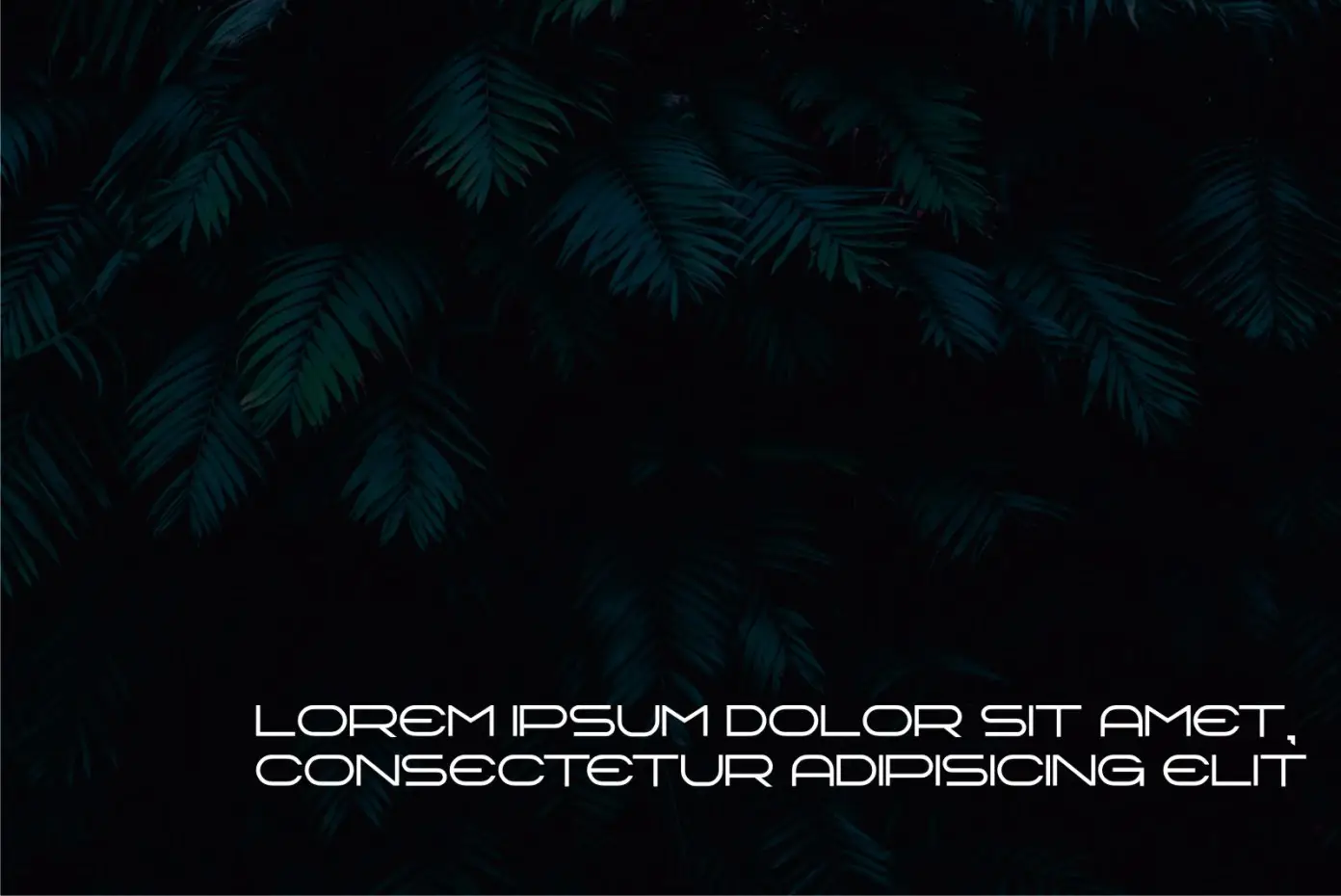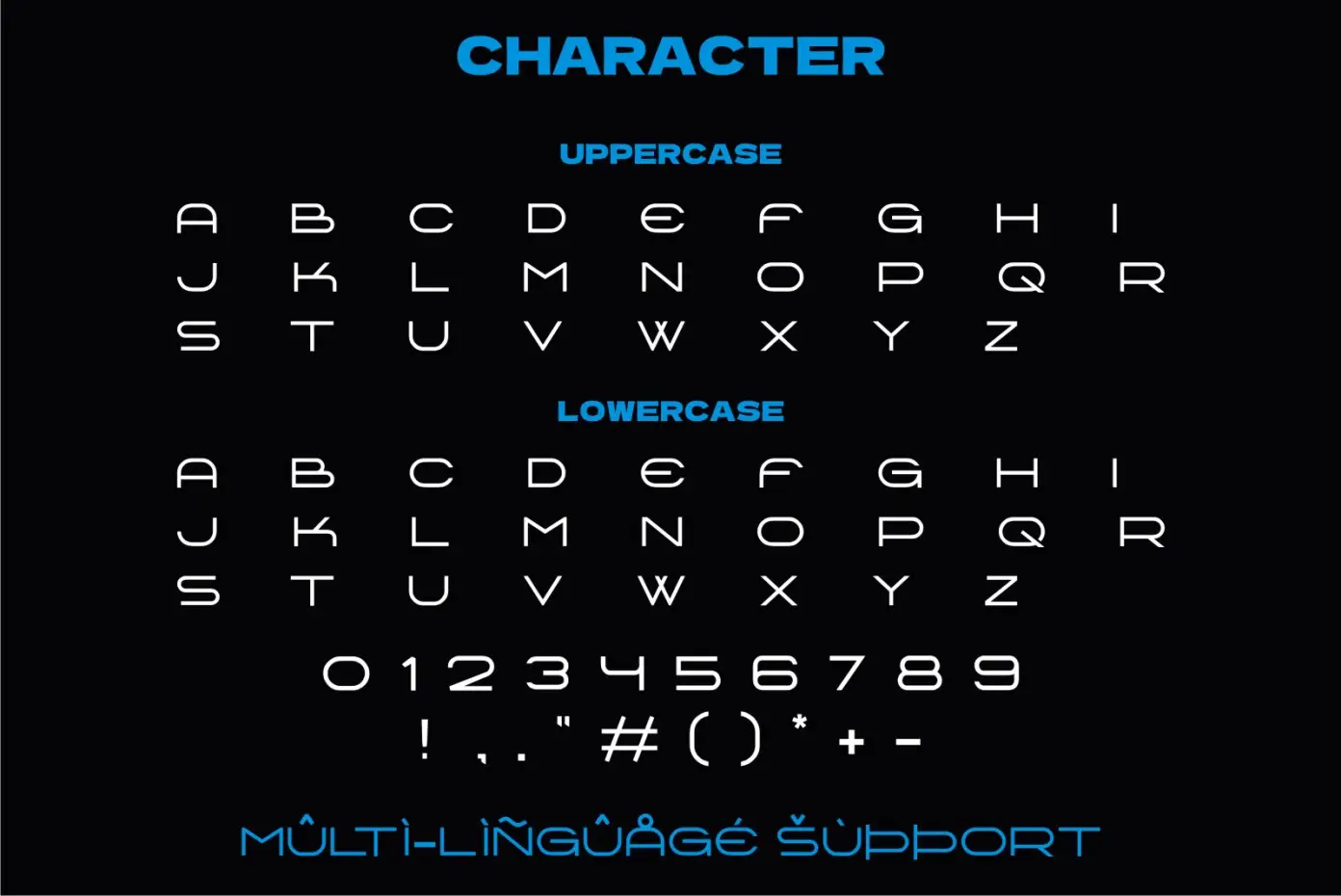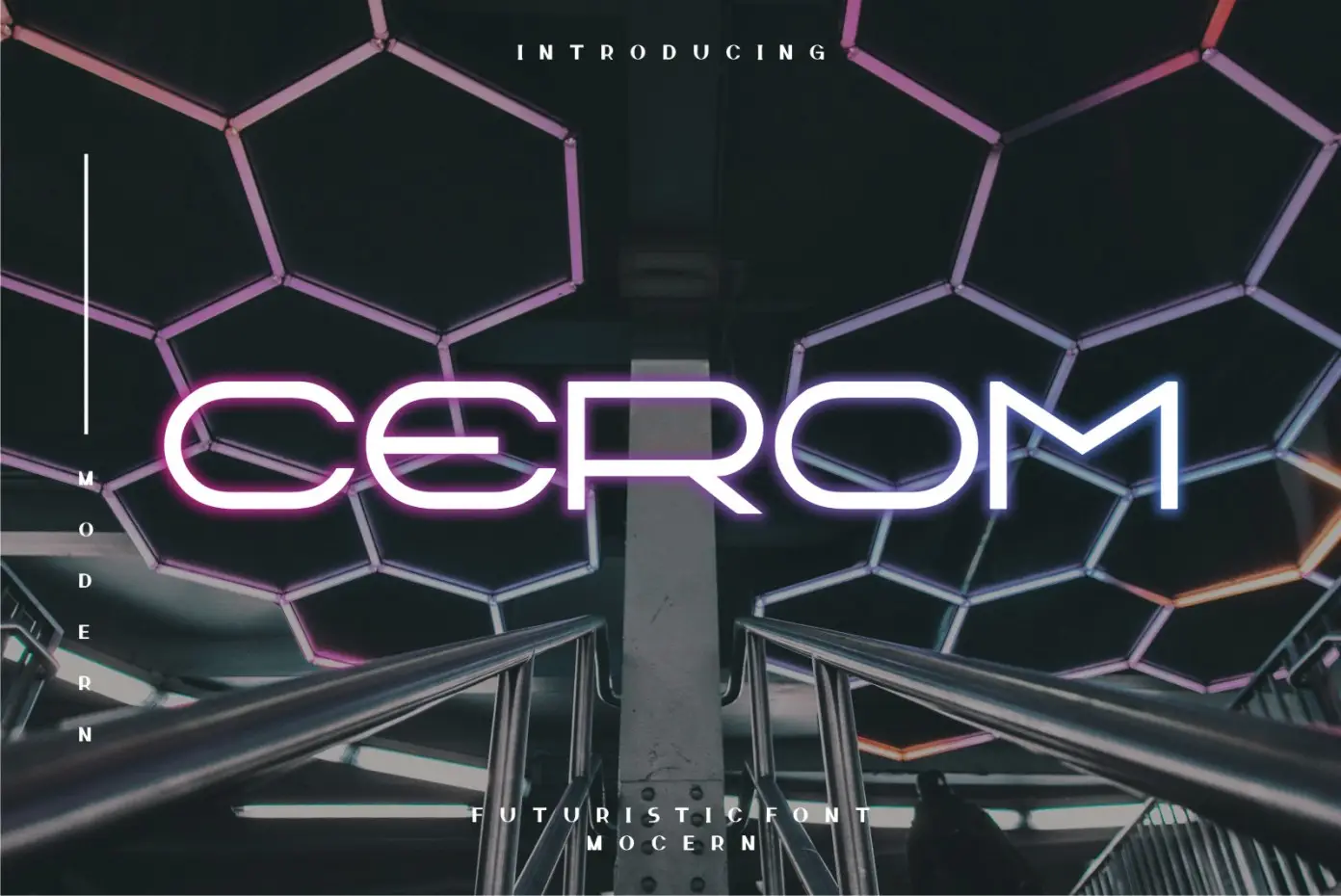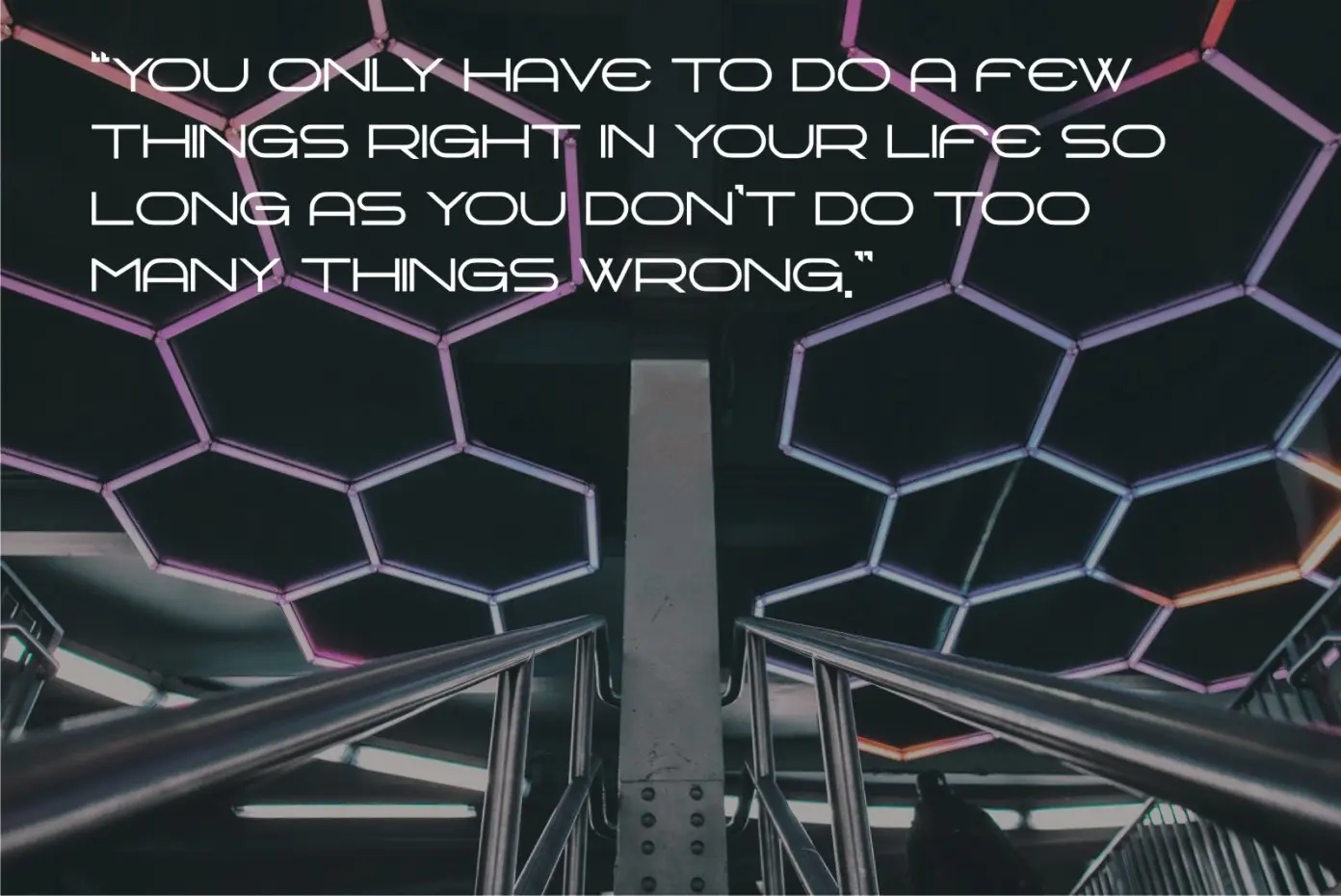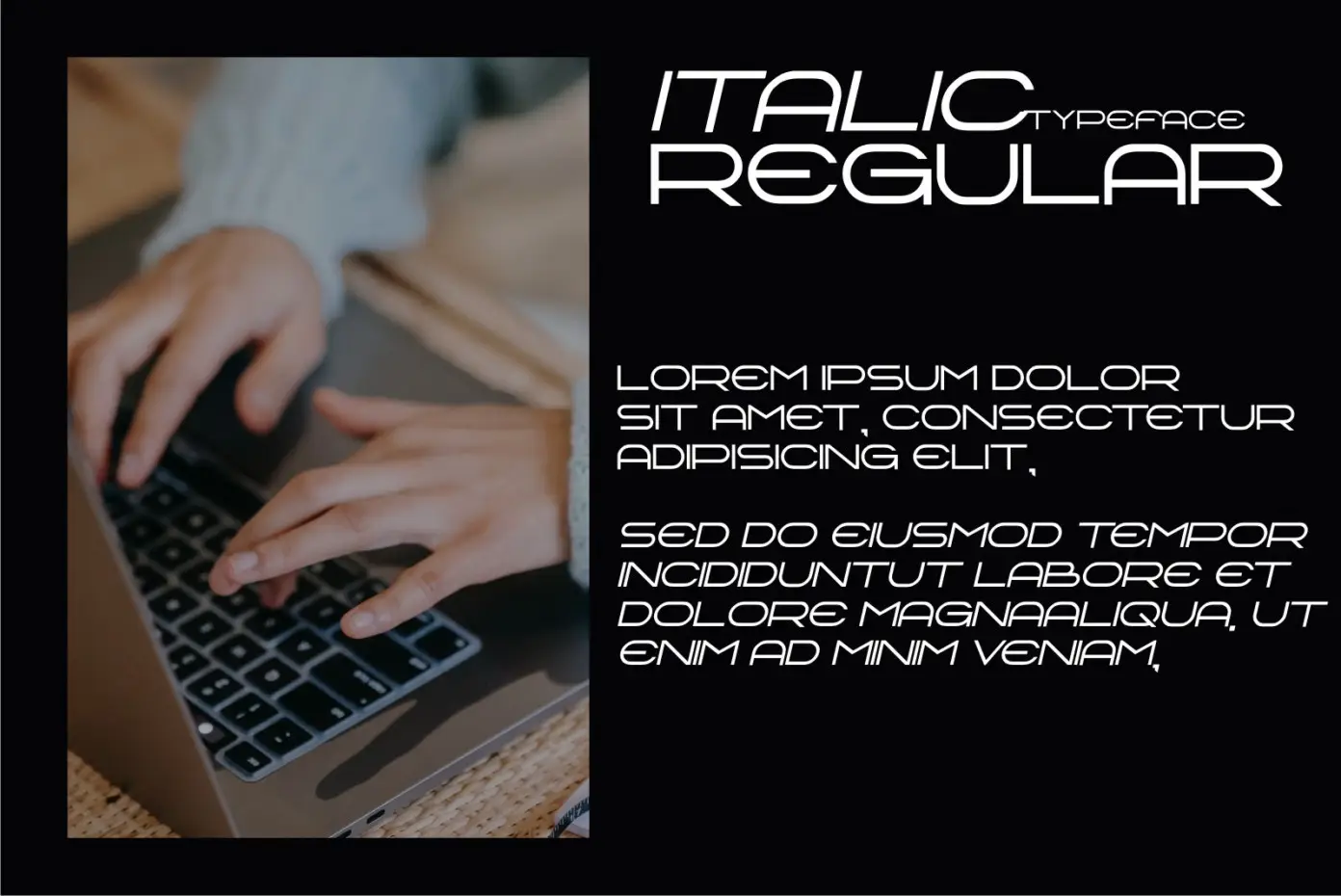
Cerom Display Font
The Cerom Display Font is a striking typeface designed to make a bold statement in your projects. With its unique character shapes and stylish design, this font is perfect for headlines, posters, and branding materials.
• Distinctive display style
• Weight: Regular, Bold
• Use in UI design for an eye-catching effect